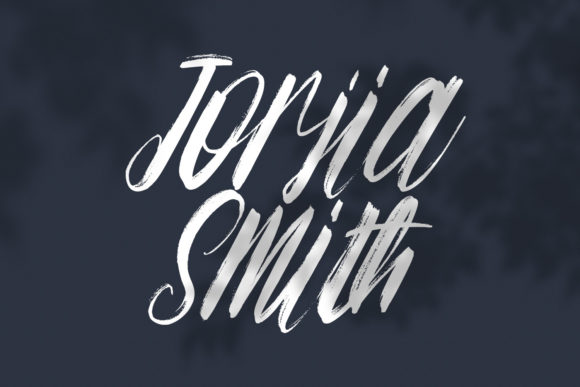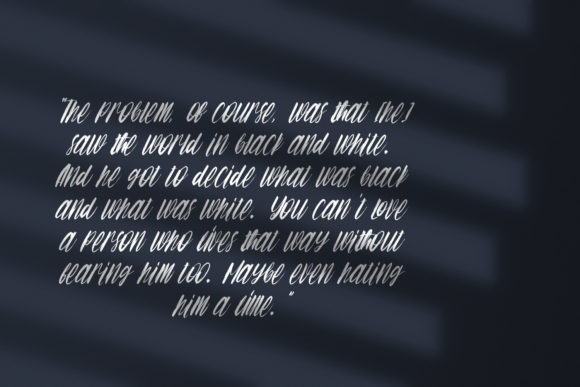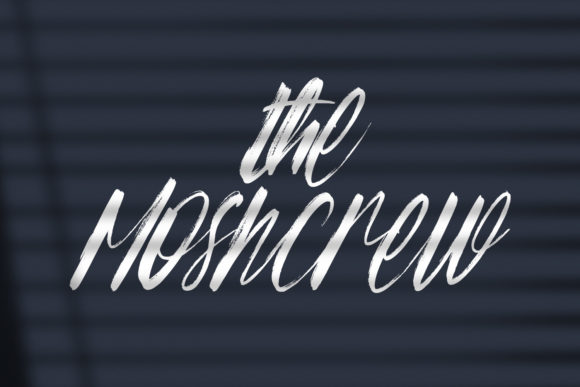
About Crash Struck Font
Crash Struck is a casual brush script font. With regular rough brushstrokes, fun characters, and a stylish vibe, this font will elevate the appearance of all creative projects! Use it for movie titles, book titles, or any other beautiful creation.